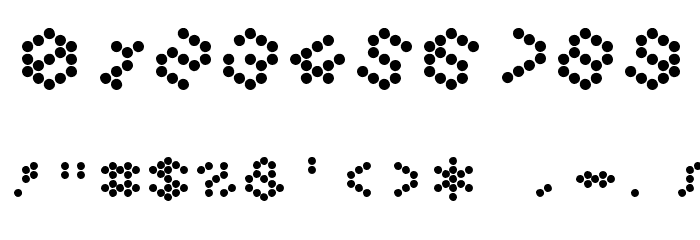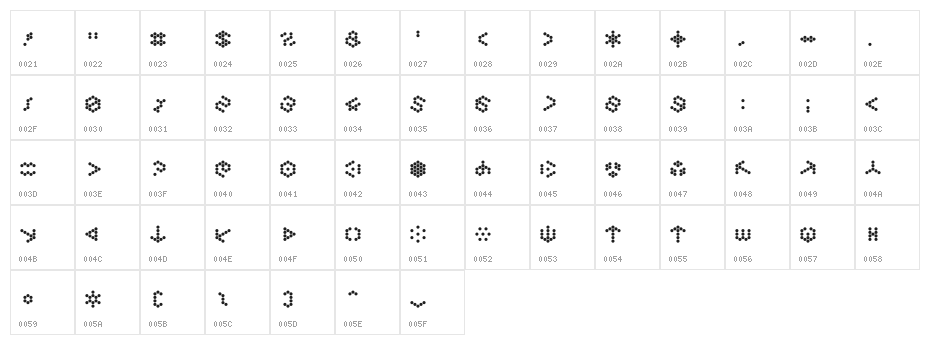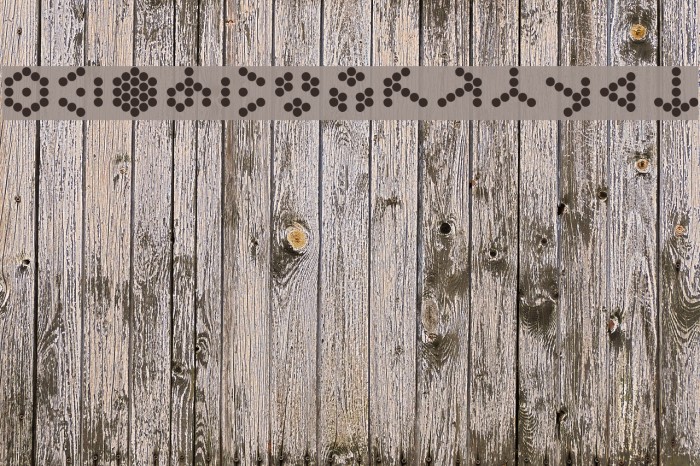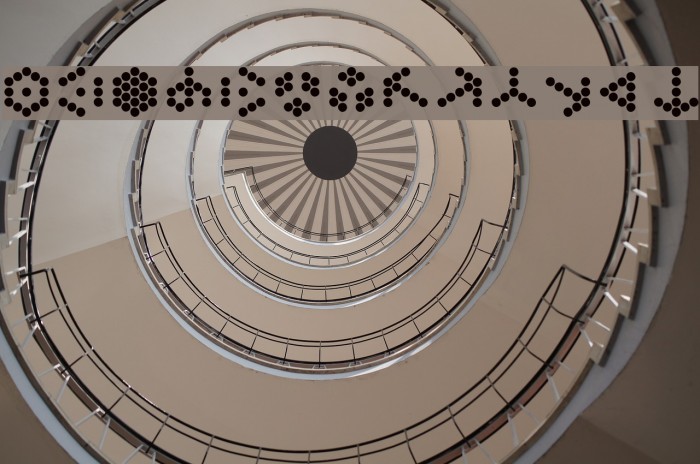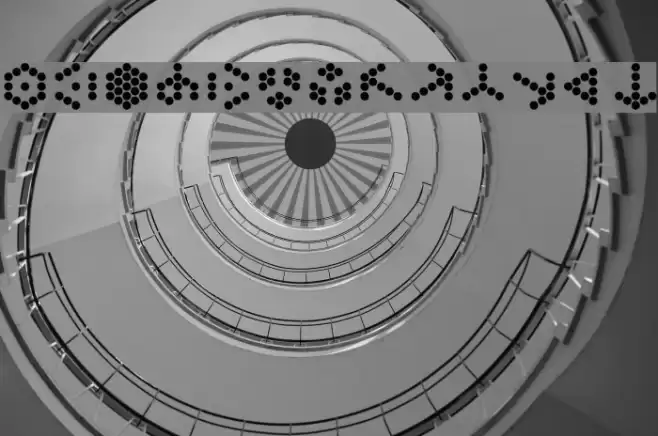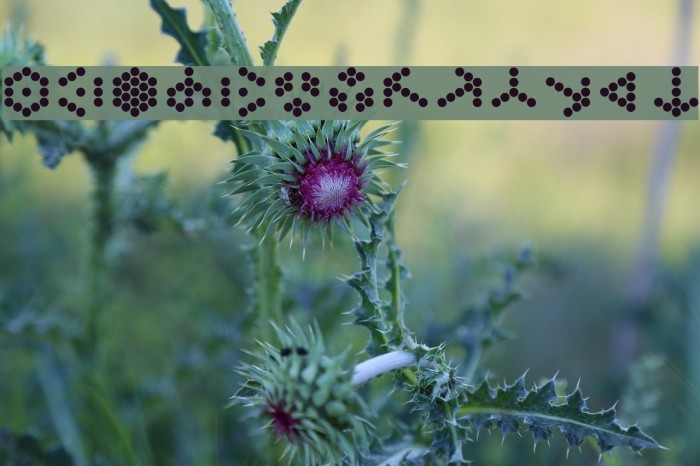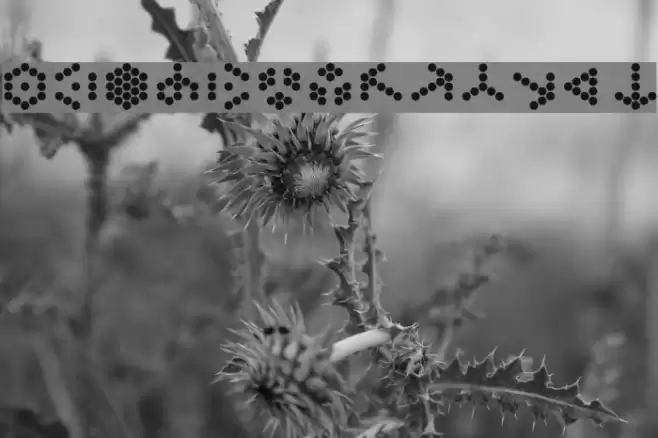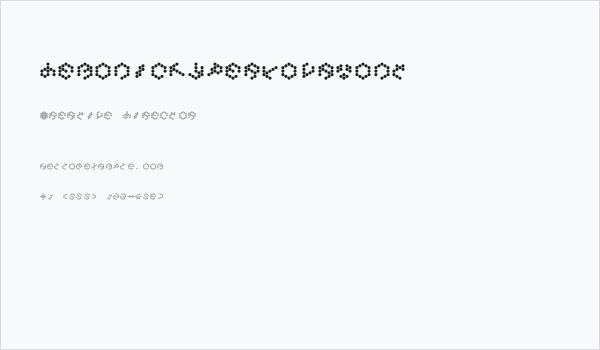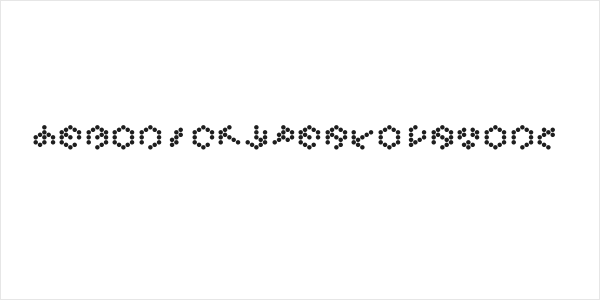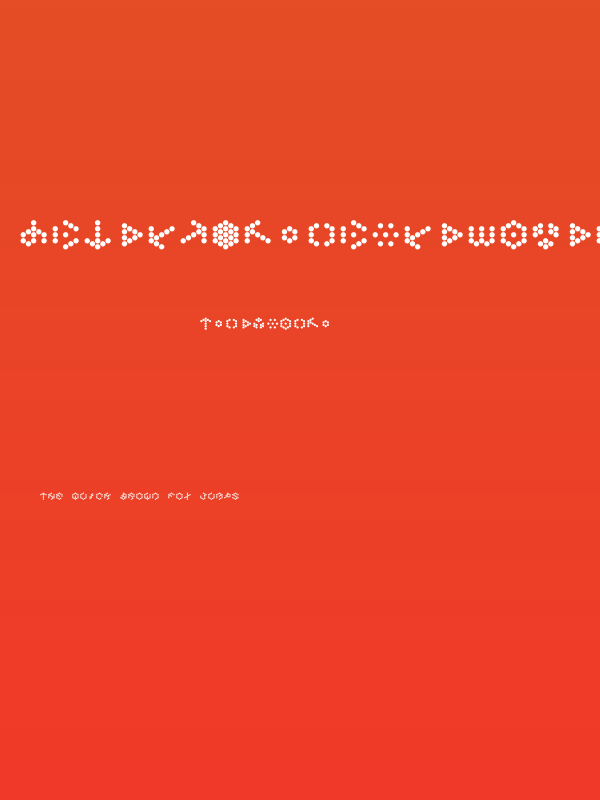
DemonicHyperNovaFont Font
DemonicHyperNovaFont Description
This font features a unique and futuristic design composed entirely of hexagonal dot patterns. Each character is formed by a series of interconnected hexagons, creating a pixelated and digital aesthetic. The geometric structure gives it a modern and tech-inspired look, suitable for projects that require a distinctive and unconventional style. The font maintains consistent spacing and alignment, ensuring readability despite its intricate design. It is ideal for creative and experimental projects where a bold statement is desired.